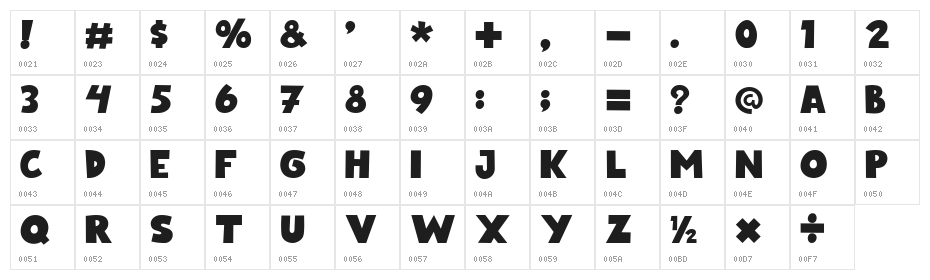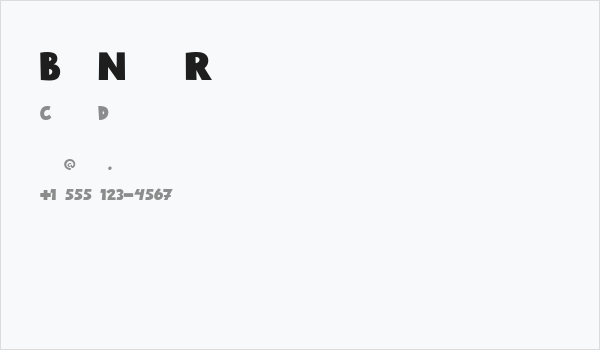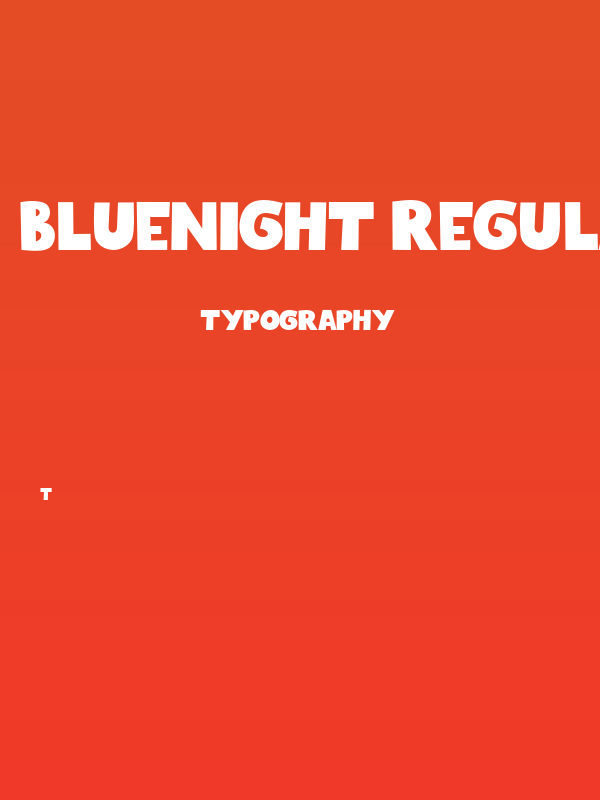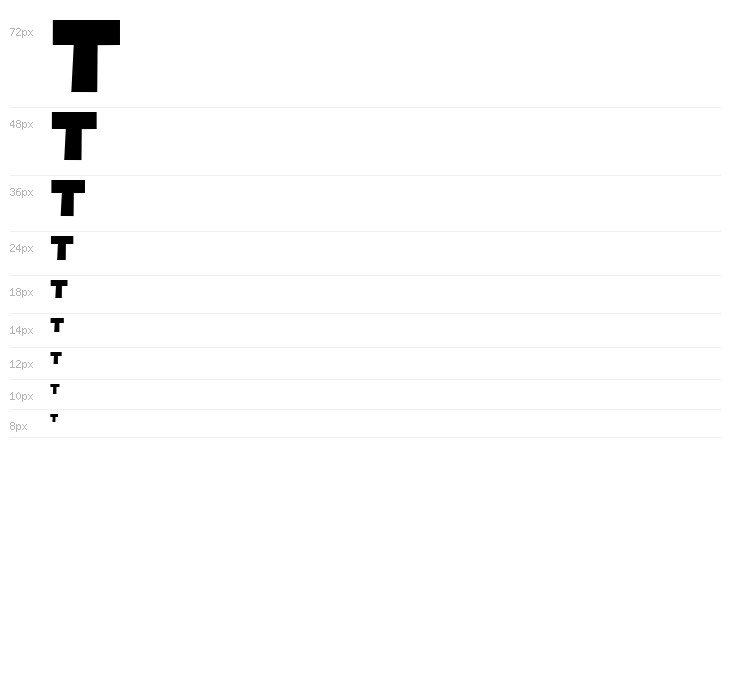
BlueNight Regular Font
BlueNight Regular Description
This font features bold, geometric letterforms with a playful and dynamic appearance. The characters are uniformly thick, creating a strong visual impact. The uppercase letters are particularly striking, with sharp angles and a slightly condensed form that adds to their boldness. The lowercase letters maintain the same boldness, ensuring consistency across the typeface. Numbers and special characters are equally bold and well-integrated, making this font suitable for attention-grabbing designs. Its overall style is modern and decorative, perfect for projects that require a strong visual statement.
Fonts by Vable Studio
| Width | Condensed |
| Overall Style | Modern, Decorative |
| Proposed Projects | Ideal for posters, headlines, branding, and any design that needs a bold, eye-catching typeface. |